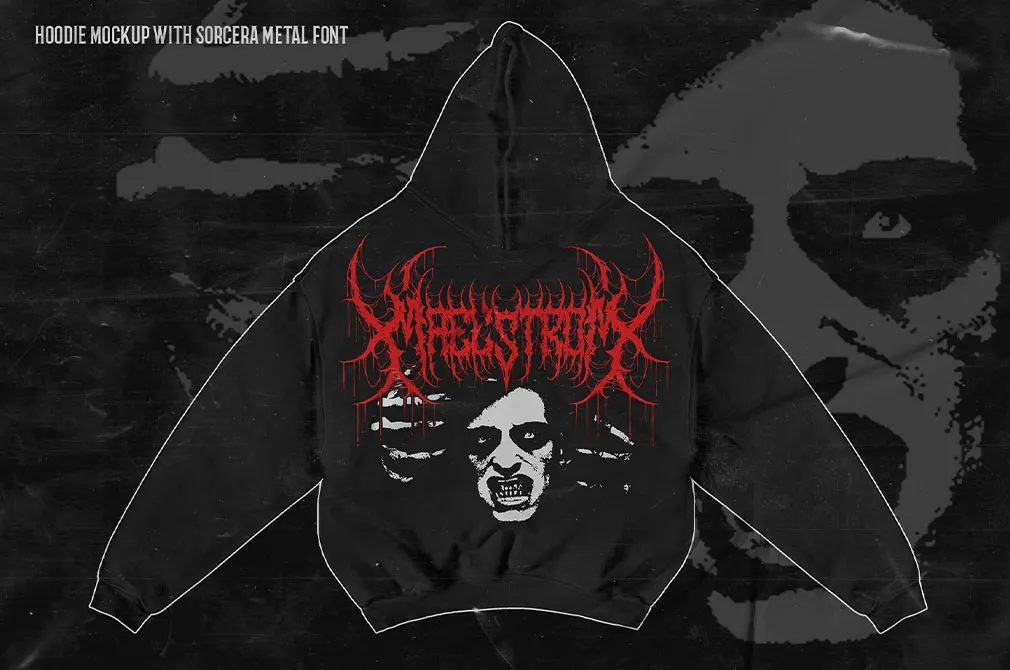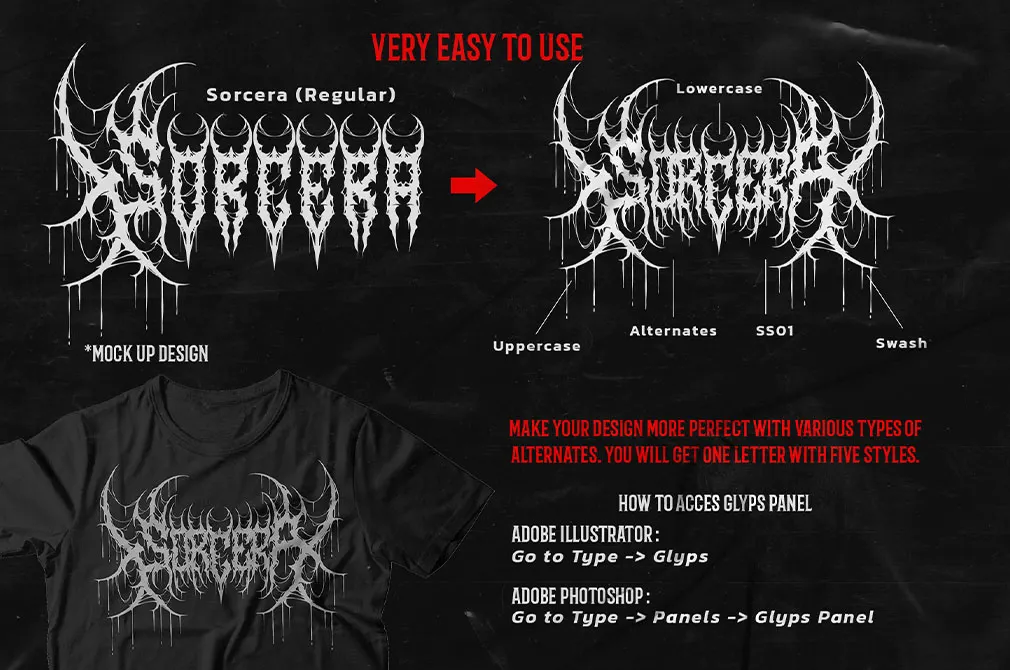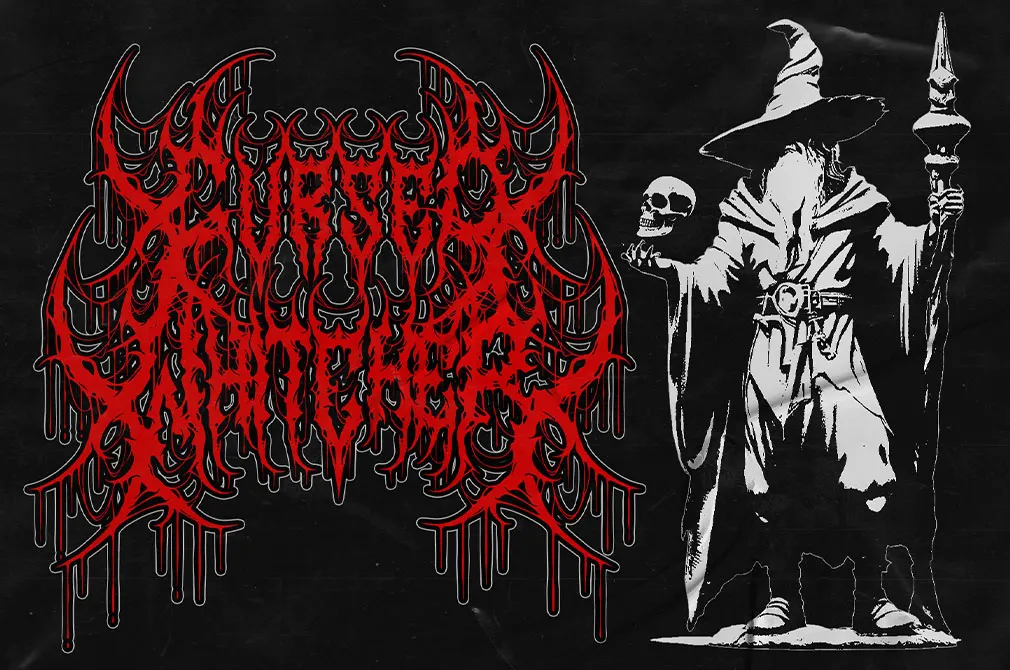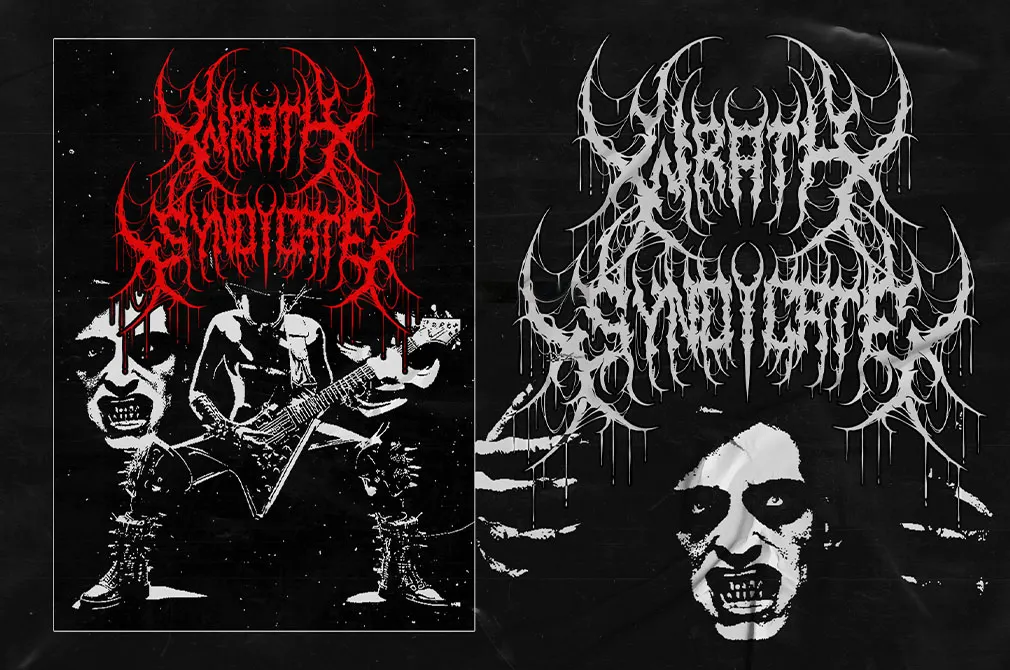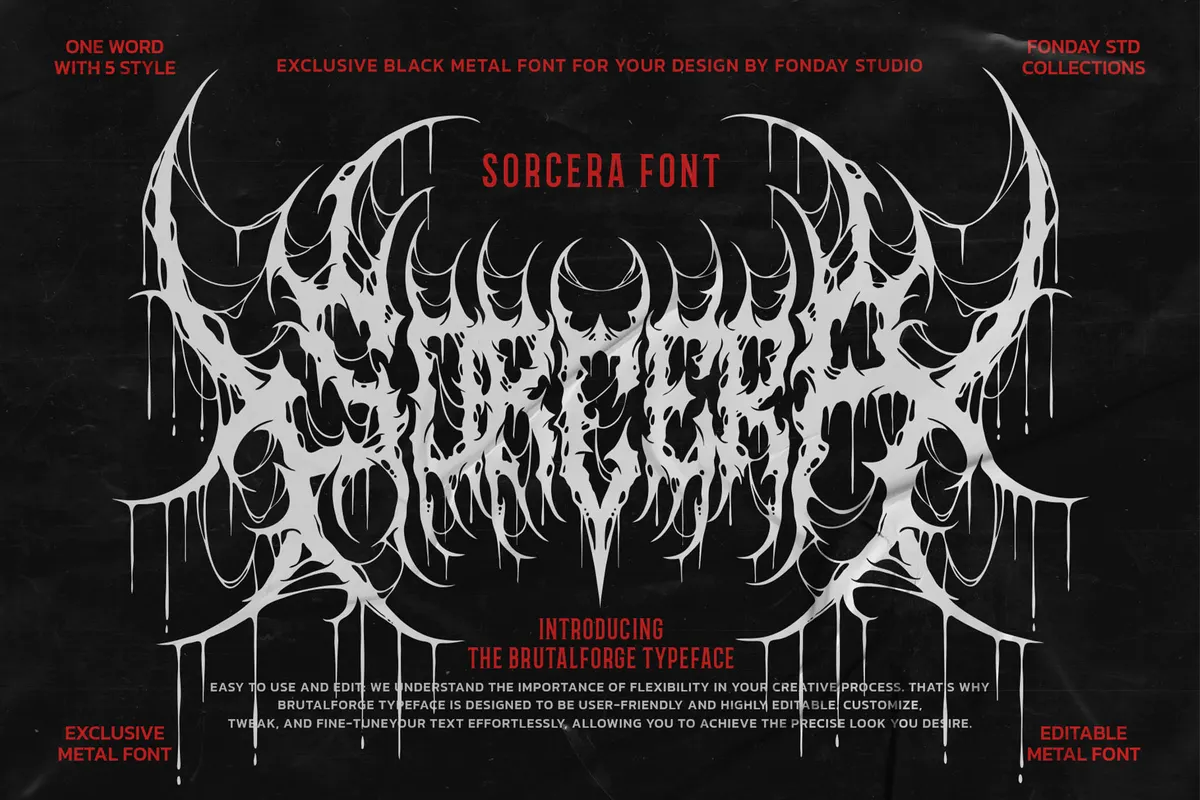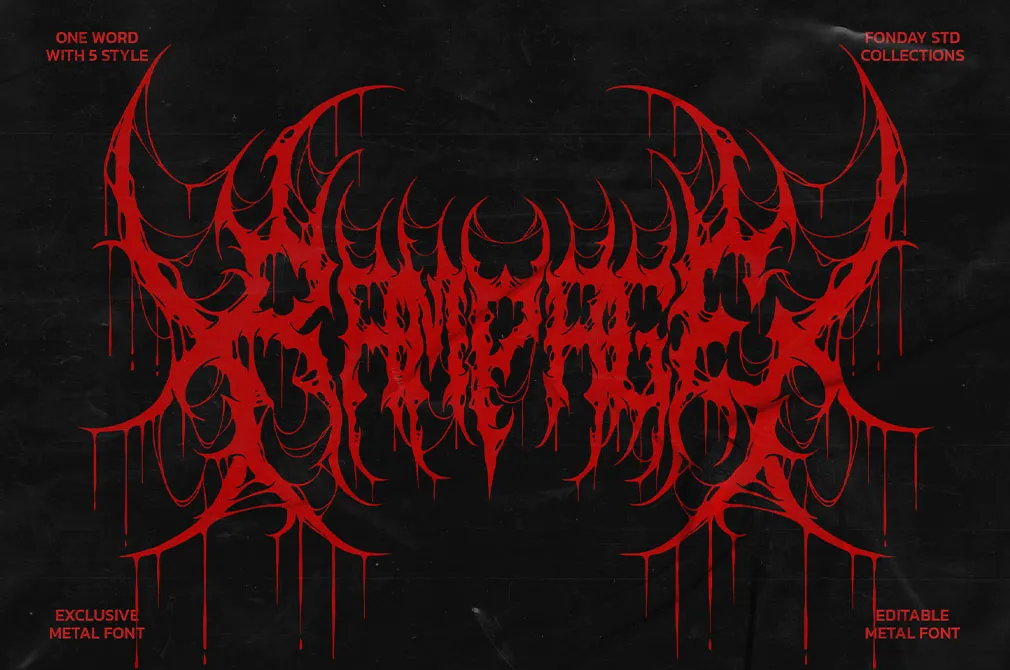
Sorcera Death Metal Font
This type is so deathly enchanting! Whether you are a death metalist at heart or your client is, Sorcera is your definitive must-have.From death metal to black metal, thrash, and more, Sorcera adapts seamlessly to any metal theme design, infusing them with darkness and style. This font is not just detailed; it’s a masterpiece of high-quality, exclusive design with a set of authentic uppercases and lowercase, punctuation, and limitless alternates.